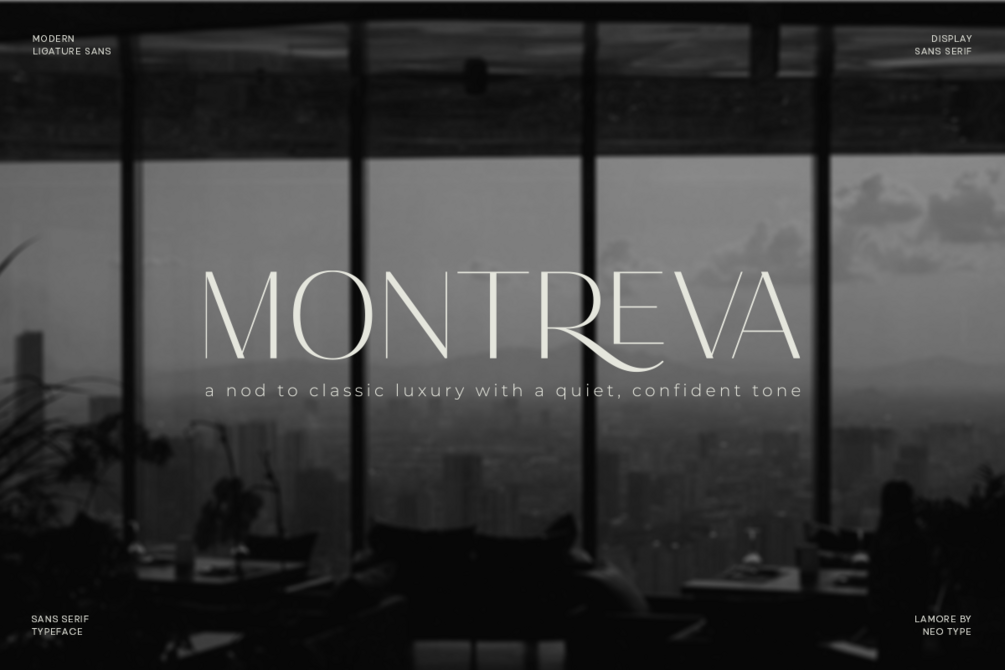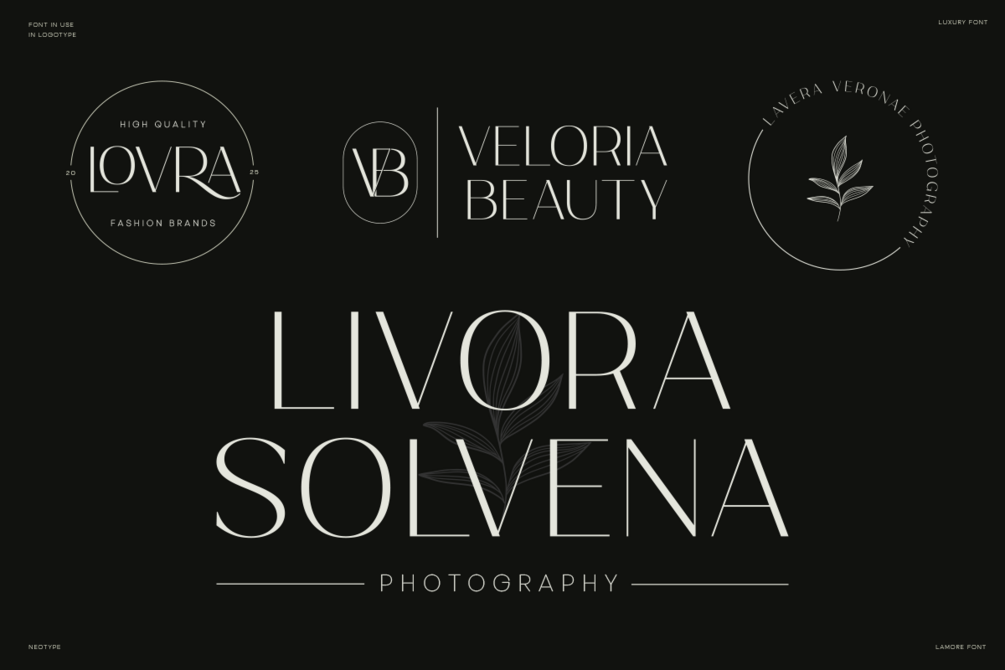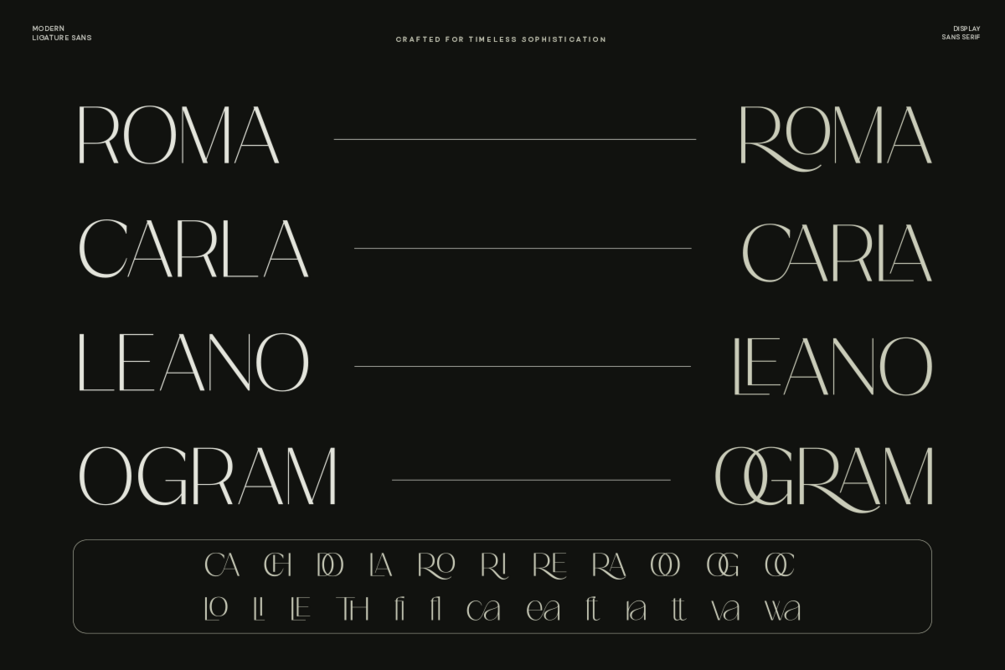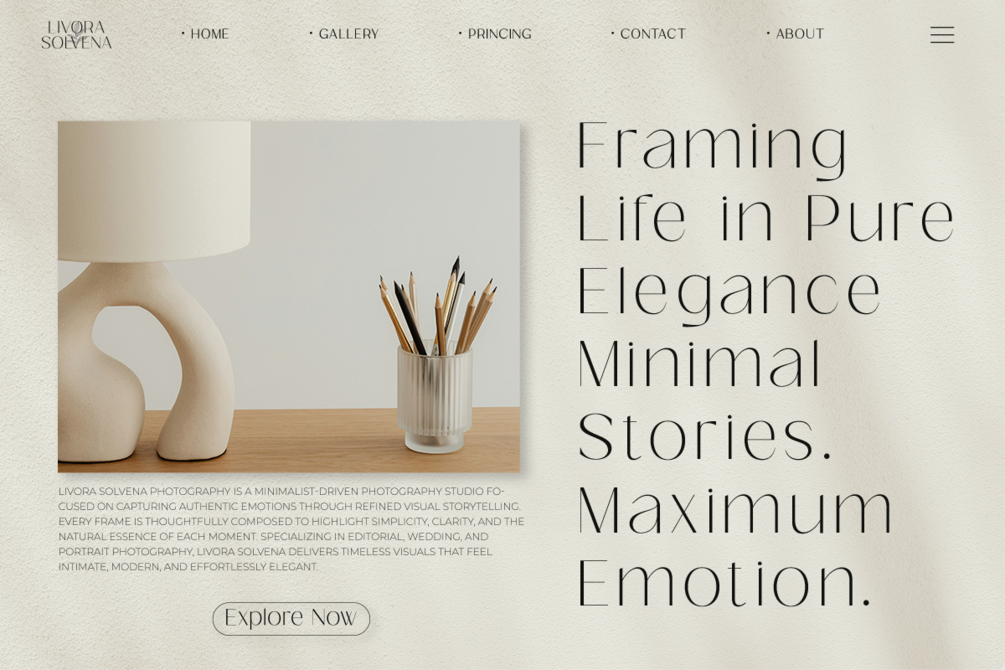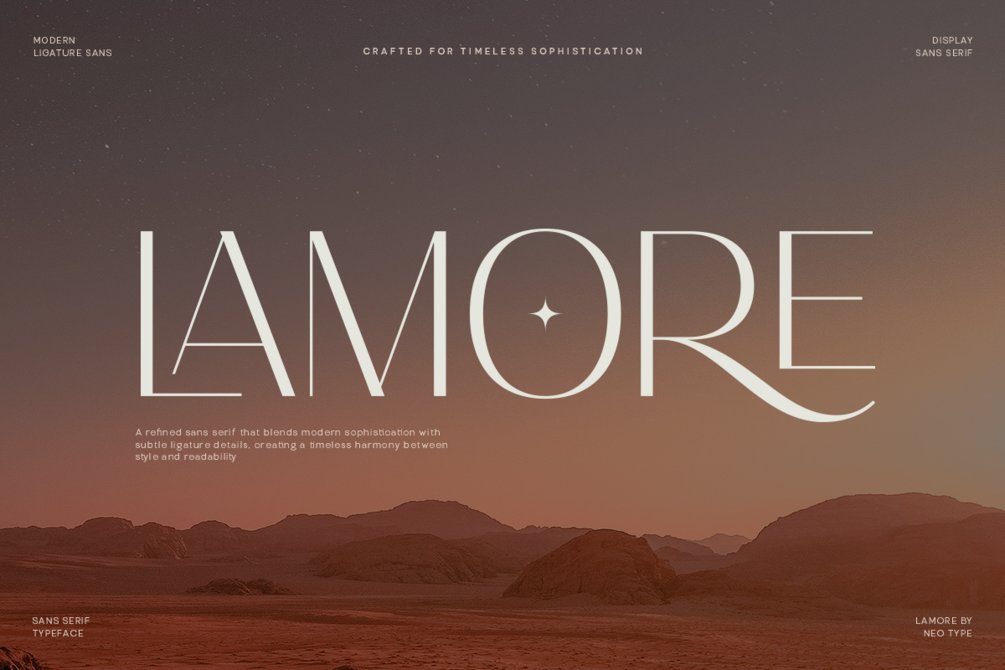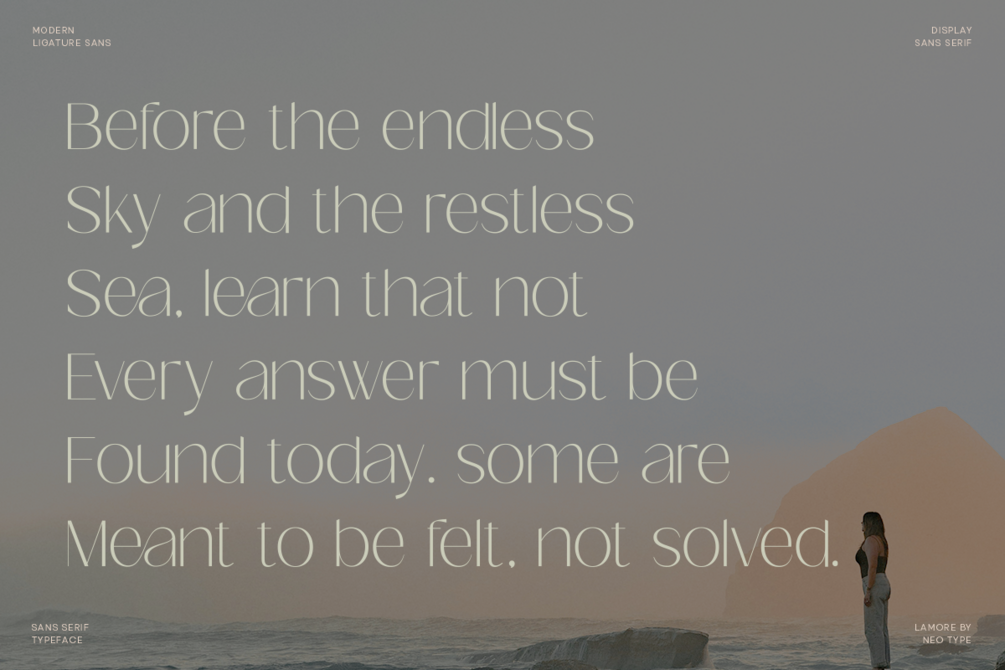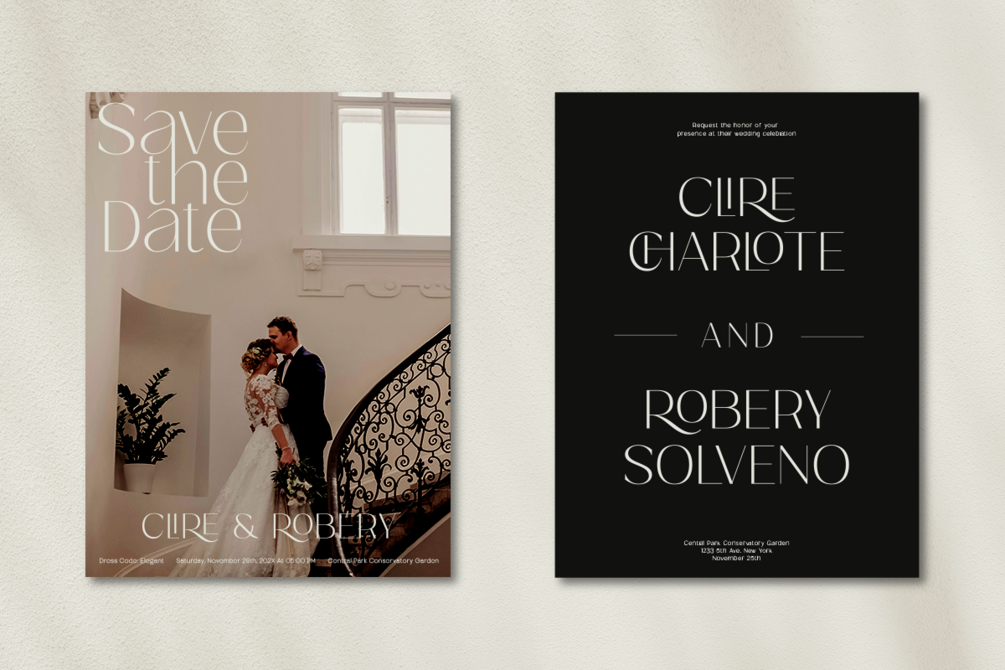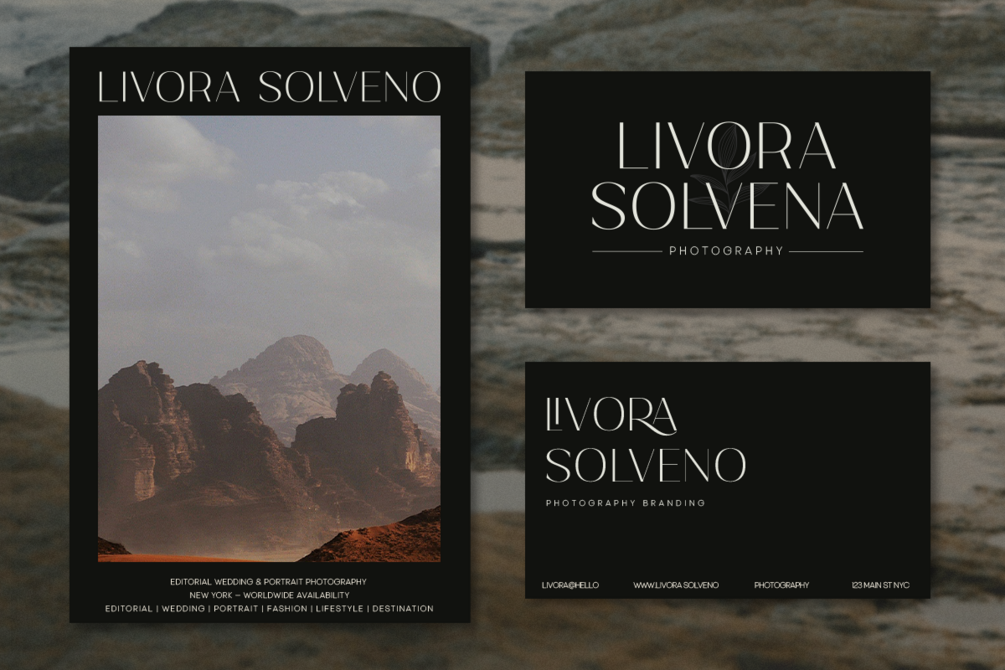
NT Lamore Clean Sans
Lamore is a minimalist clean sans serif display font introduced as a modern alternative to Radiant. Designed by Neotype, Lamore offers refined geometry, smooth curves, and strong visual clarity—making it perfect for designers looking for a cleaner, more contemporary option with the same bold presence. Ideal for branding, logos, editorial layouts, and any project that needs a fresh and stylish display typeface.
- Uppercase & Lowercase
- Numbers & Punctuation
- Multilingual Support
- Clean geometric shapes
- Optimized for headlines & display
Alternates & Ligatures
45+ Glyphs
Accented characters
Alphabet
386 Glyphs